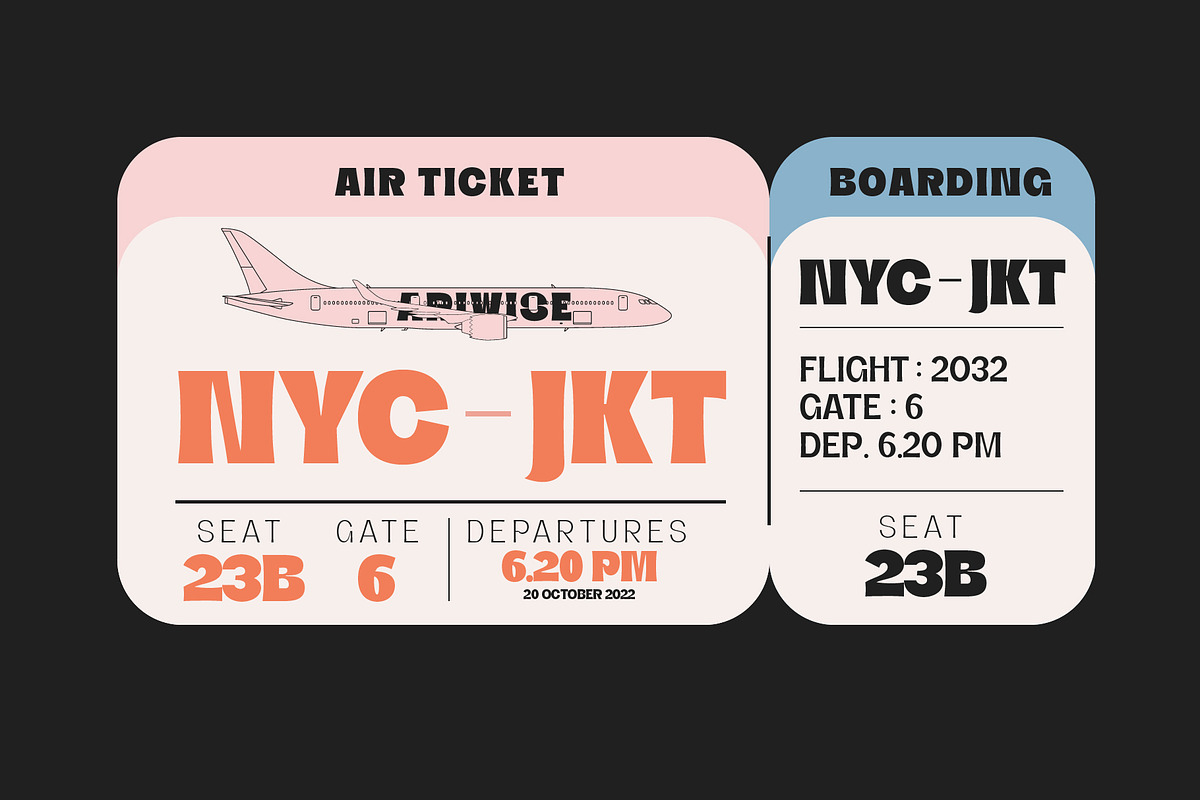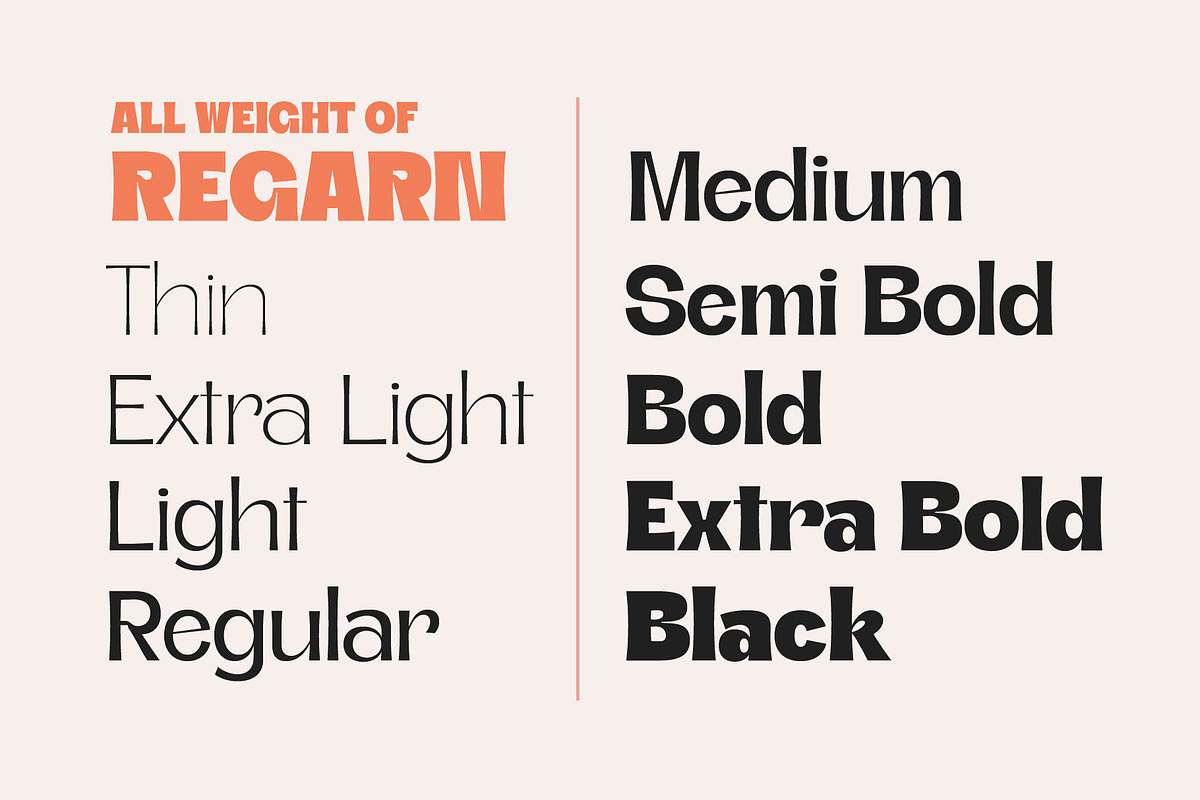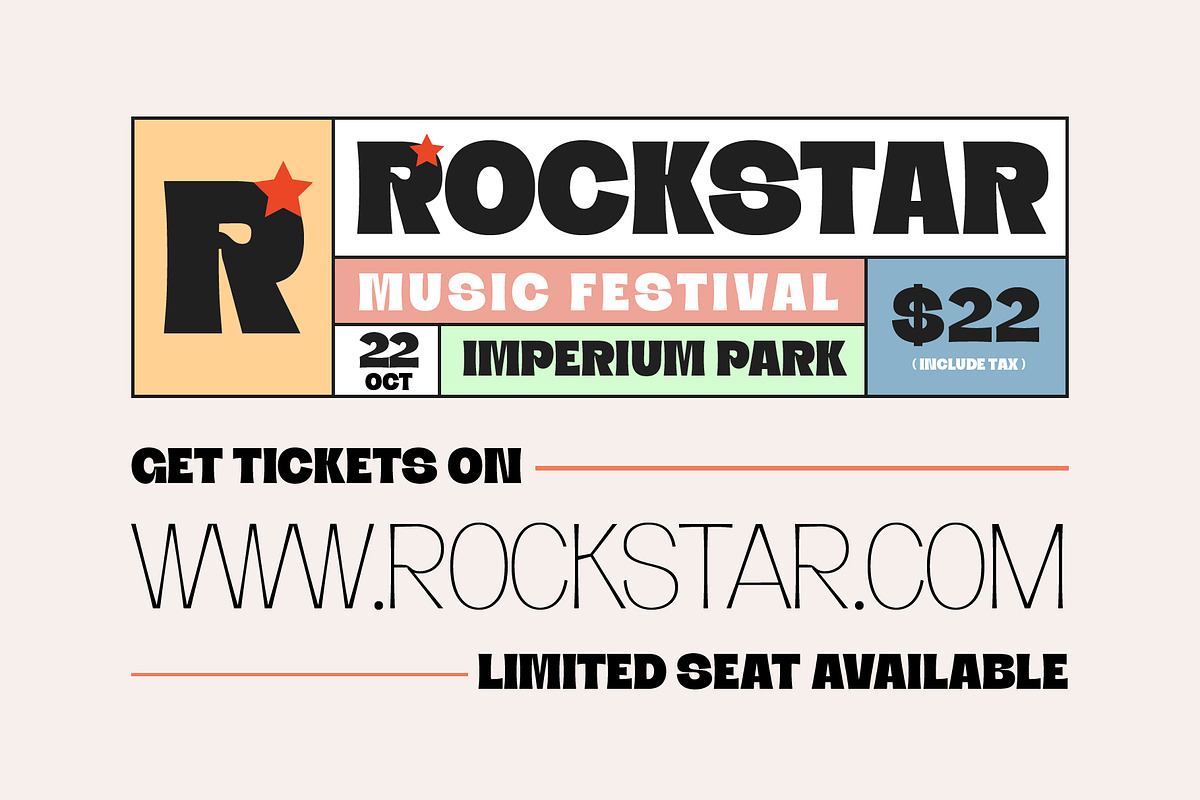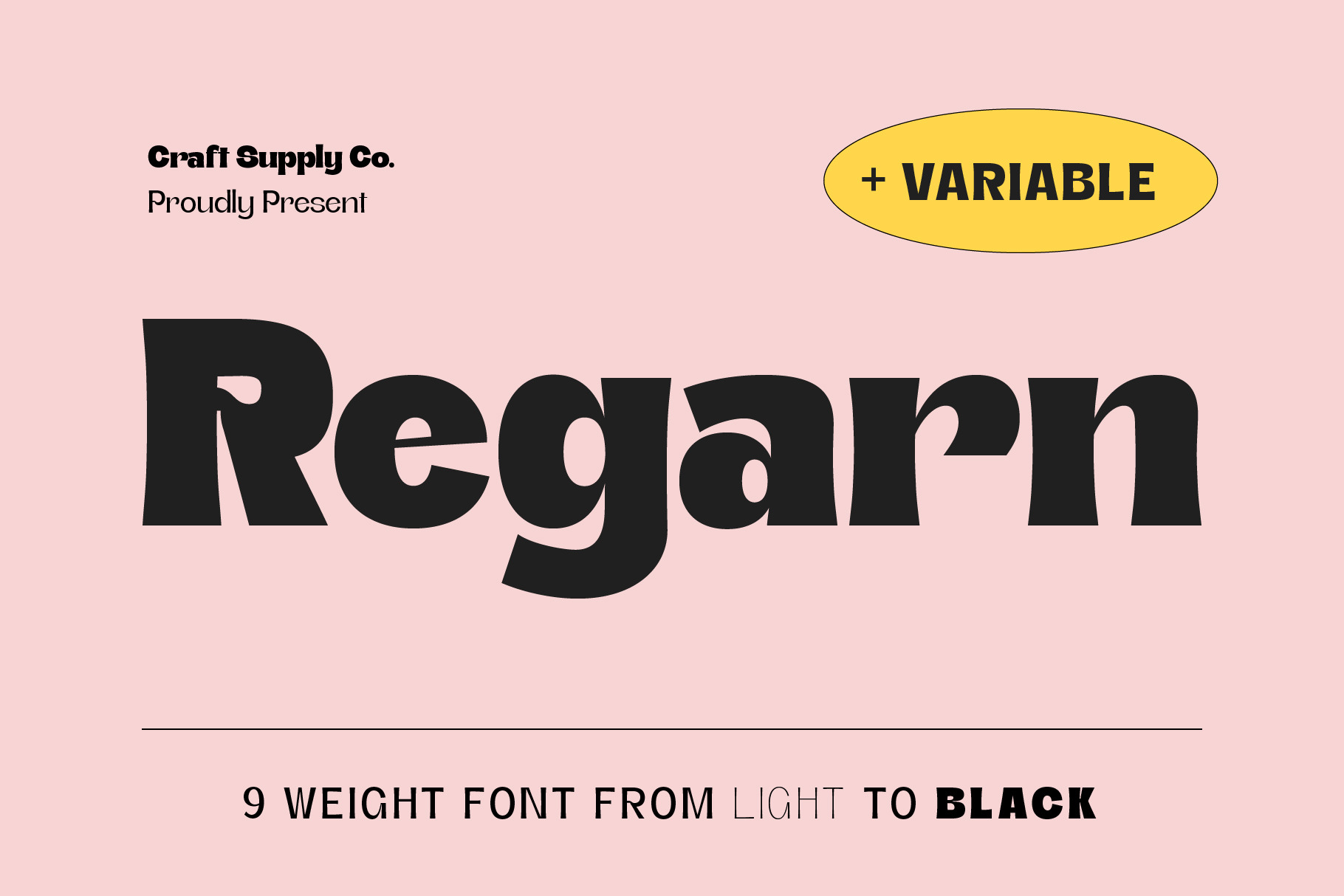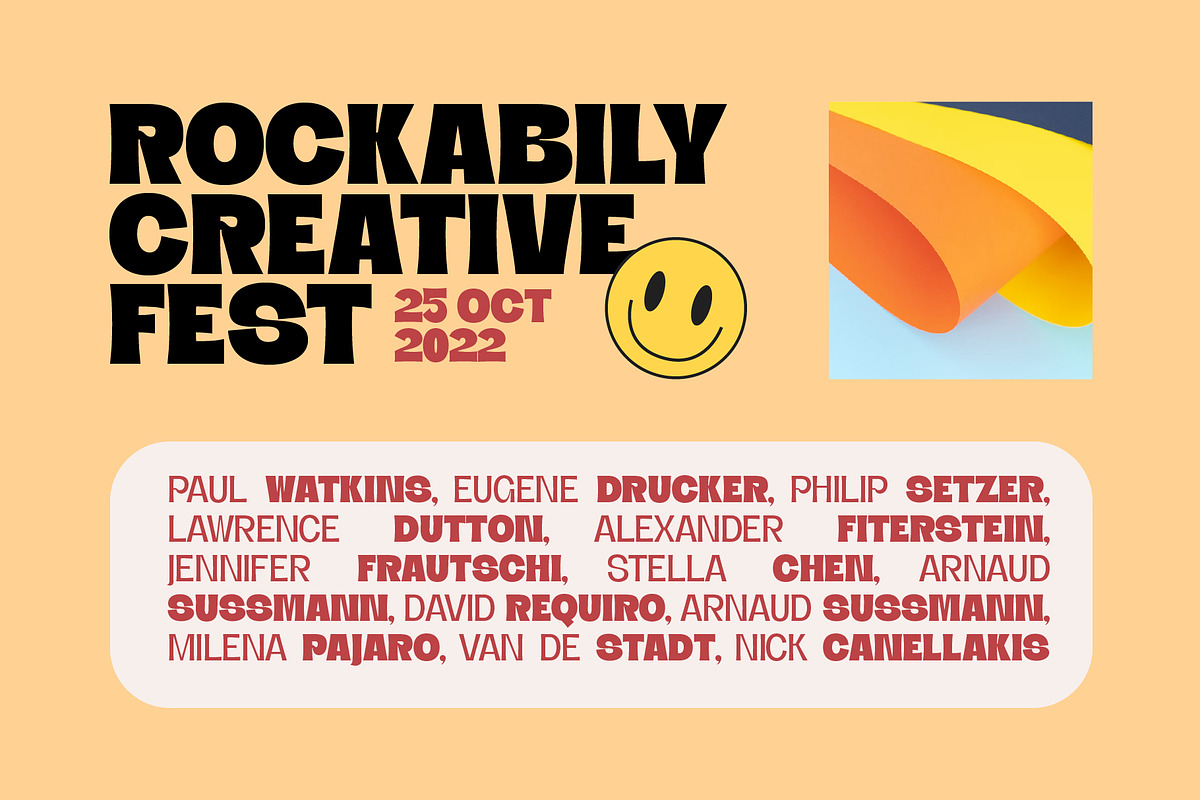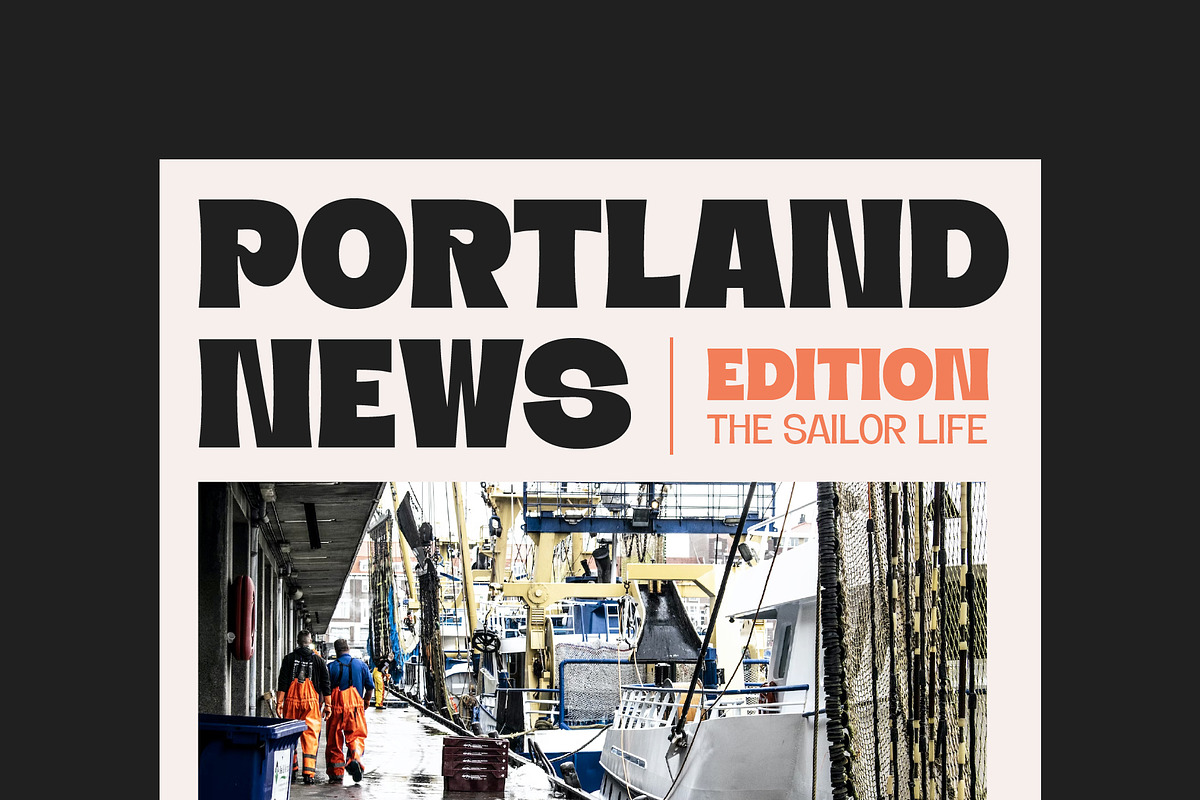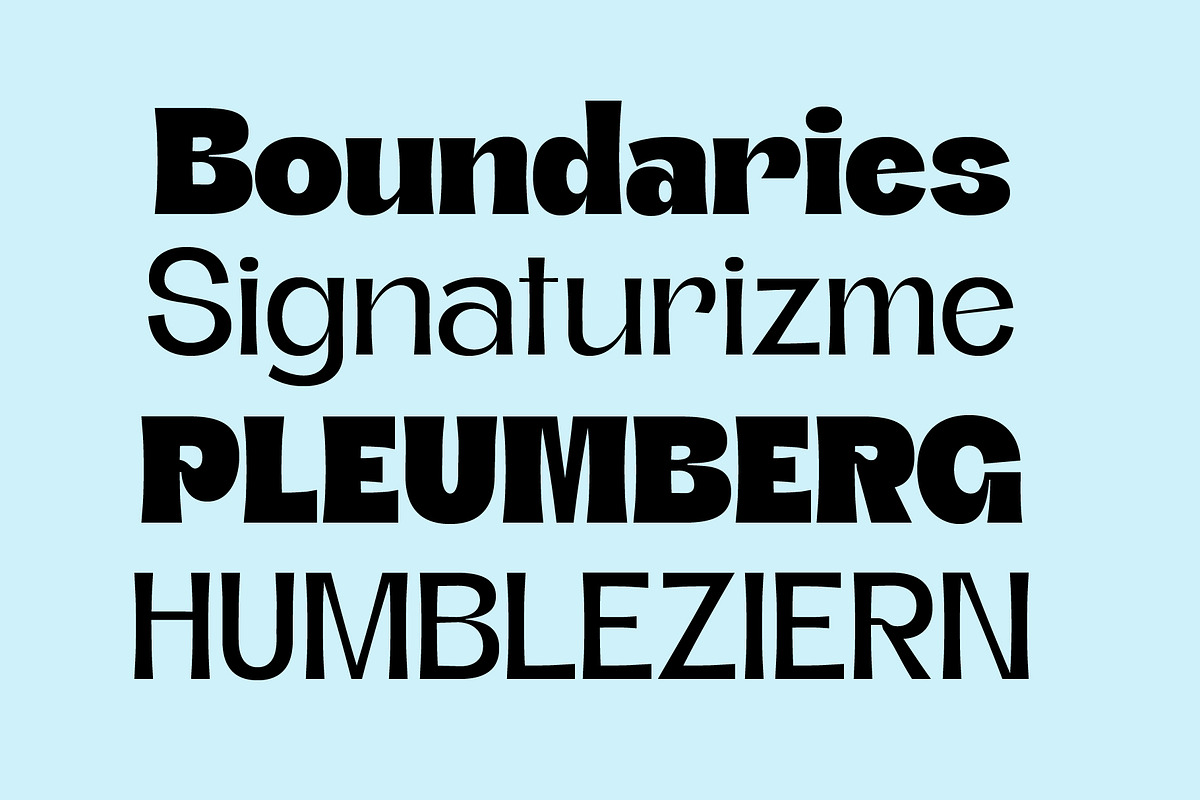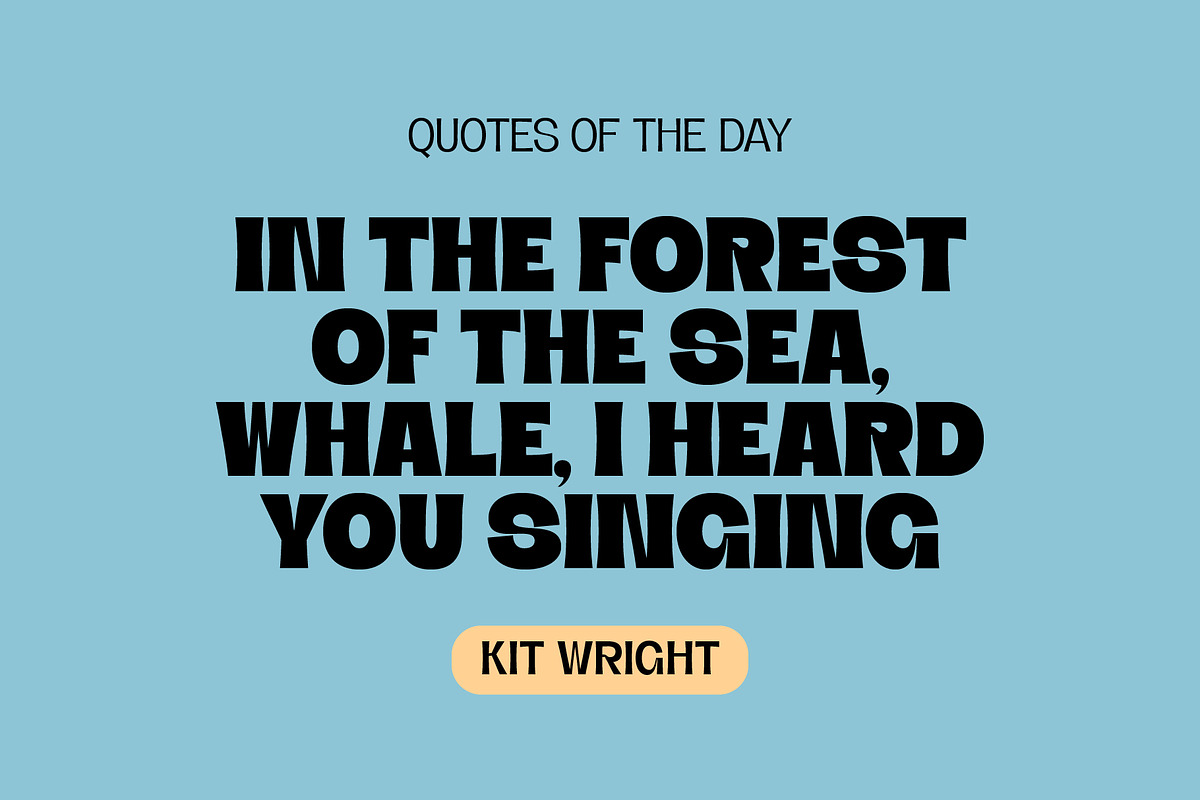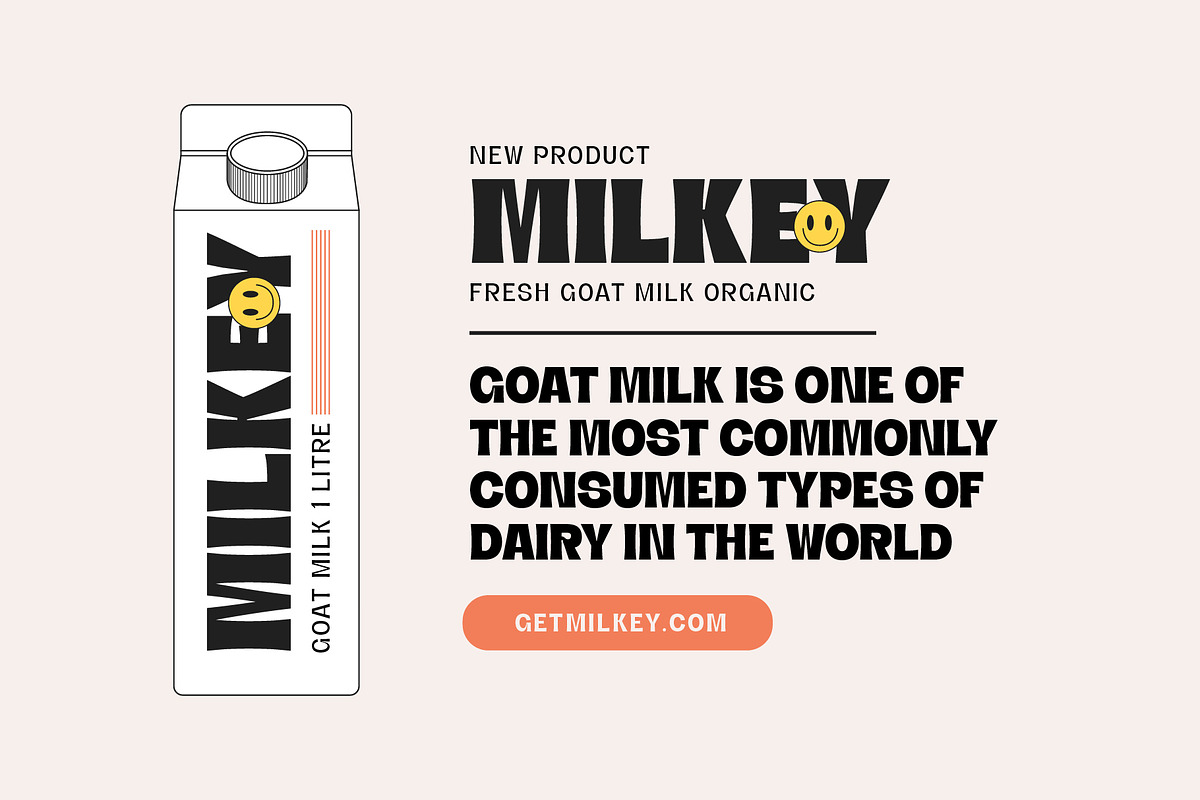
Regarn Font Family + Variable
Introducing Regarn Font Family + Variable
With 9 weight options to choose, Regarn is versatile enough for any type of project. Whether you're a designer looking for a new font to add to your collection, or just need some basic text fonts on hand, Regarn has you covered.
Looking for a font that is versatile, modern and stylish? Regarn is the perfect choice!. You can use from webpages to print projects, Regarn will be sure to meet your needs.
- Regarn Thin
- Regarn Extra Light
- Regarn Light
- Regarn Regular
- Regarn Medium
- Regarn Semi Bold
- Regarn Bold
- Regarn Extra Bold
- Regarn Black